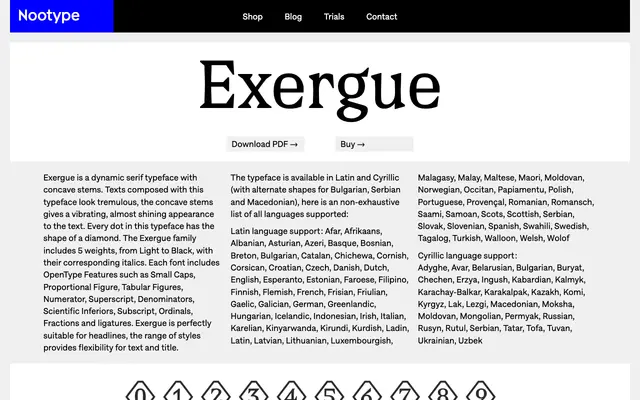
Exergue
A serif with concave stems that give composed text a trembling, almost shimmering visual quality, available in five weights with italics across Latin and Cyrillic.
The concave stems and diamond-shaped dots are the defining structural choices here, creating a vibrating optical effect that reads well at headline sizes. Five weights run from Light to Black, each with a corresponding italic, and the OpenType feature set covers small caps, multiple figure styles, fractions and ligatures. Language support is broad, covering Latin across dozens of languages and Cyrillic with alternates for Bulgarian, Serbian and Macedonian.
A serif with concave stems and diamond-shaped dots, giving it a distinctive vibrating optical quality that sits between classical serif structure and expressive display design.